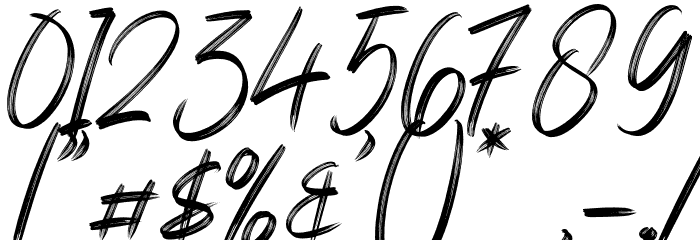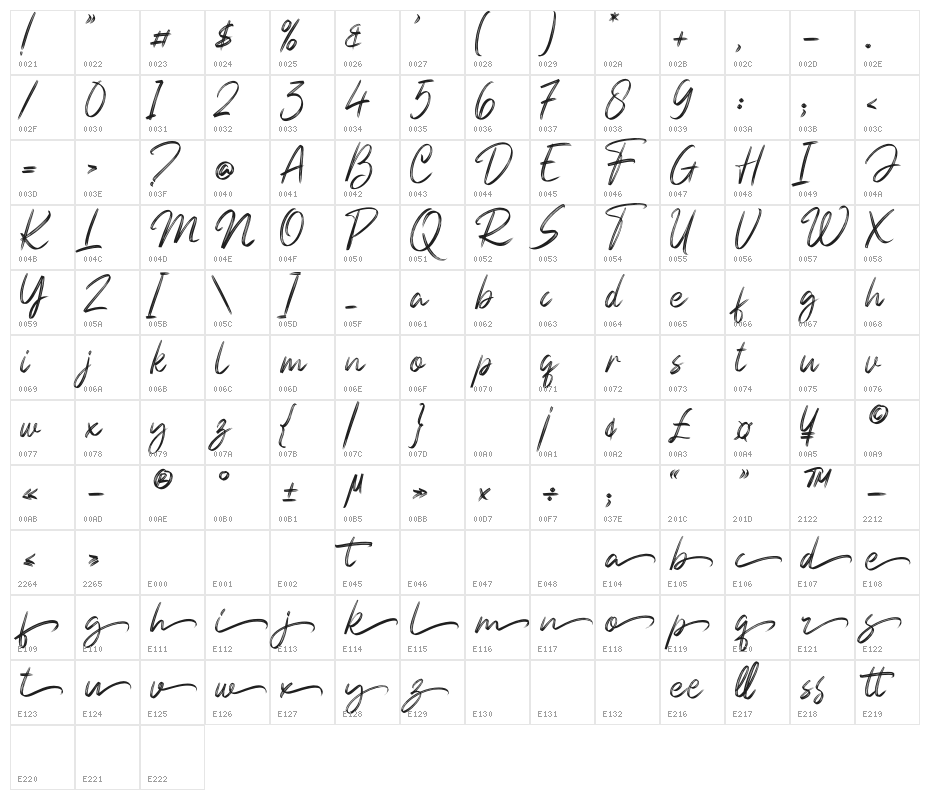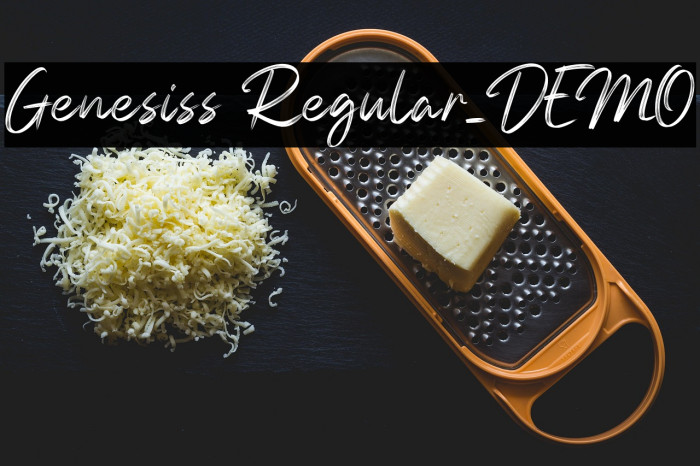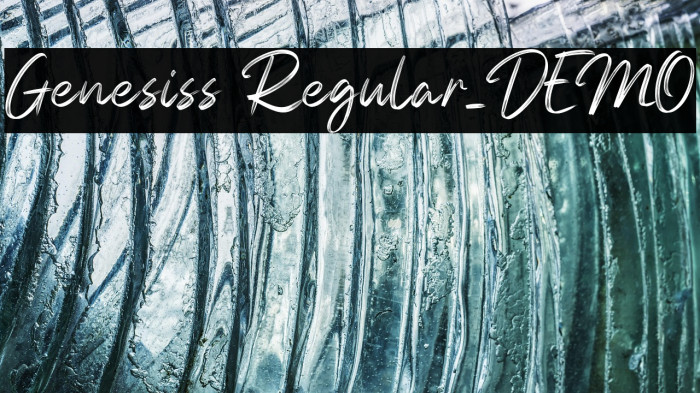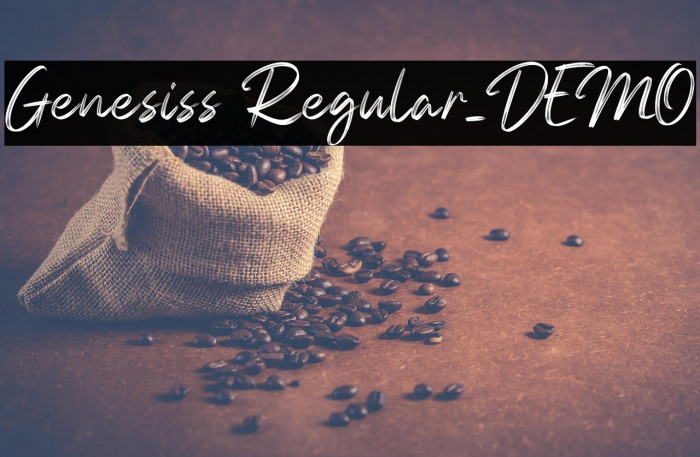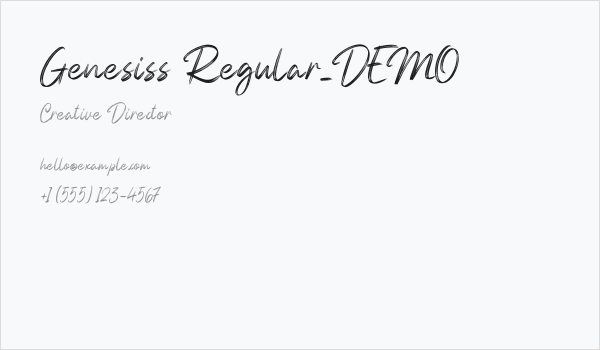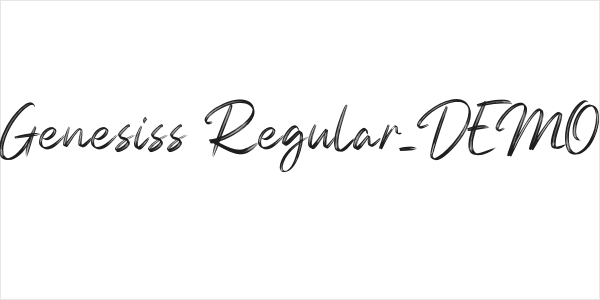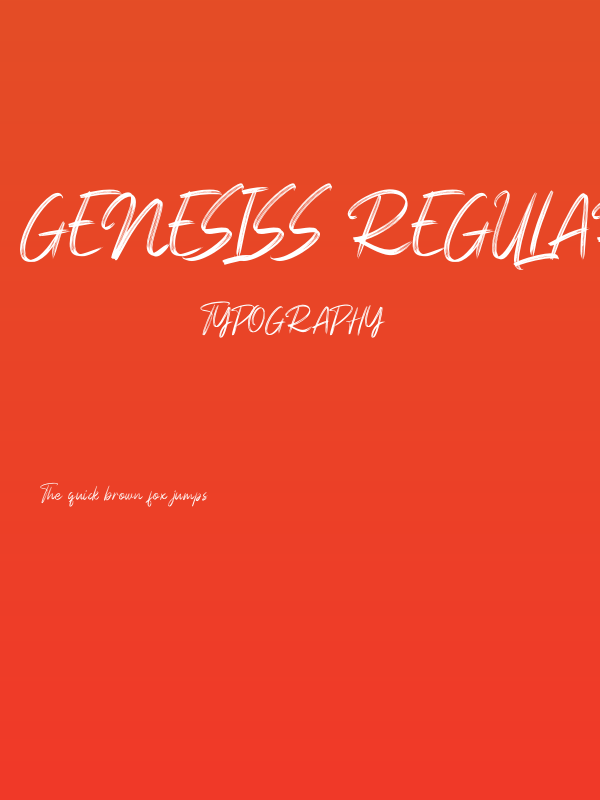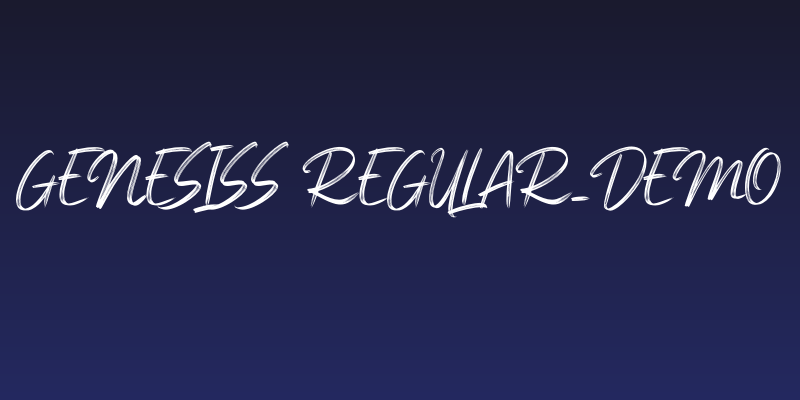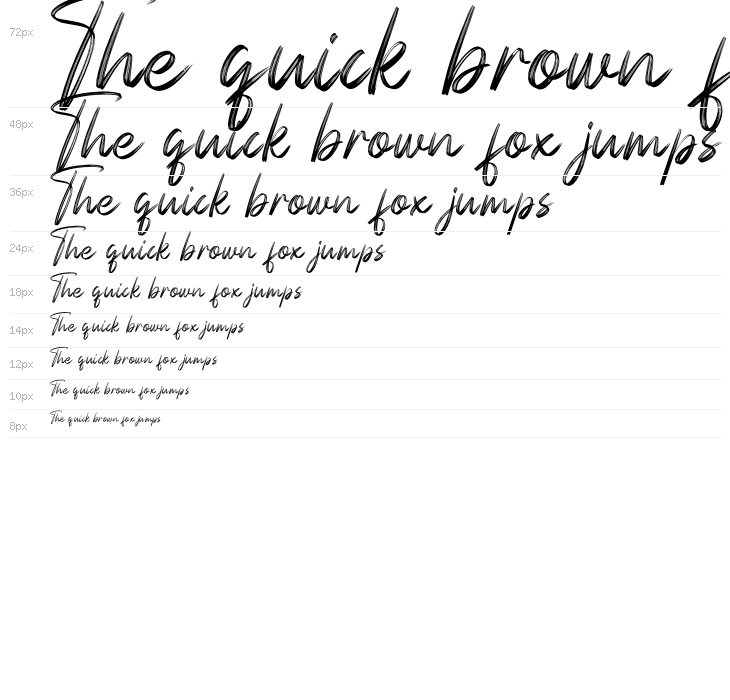
Genesiss Regular_DEMO Font
Genesiss Regular_DEMO Description
This font features a dynamic and energetic script style, characterized by its fluid, handwritten appearance. The strokes are bold and expressive, with a slight slant that adds to its lively and informal feel. The uppercase letters are slightly larger and more pronounced, while the lowercase letters maintain a consistent flow. Numbers and special characters are integrated seamlessly, maintaining the same energetic style. The overall impression is one of creativity and spontaneity, making it suitable for projects that require a personal touch.
| Proposed Projects | Ideal for branding, invitations, greeting cards, and creative projects that require a personal, artistic touch. |